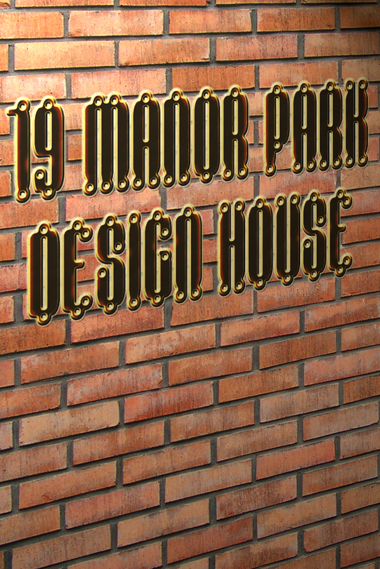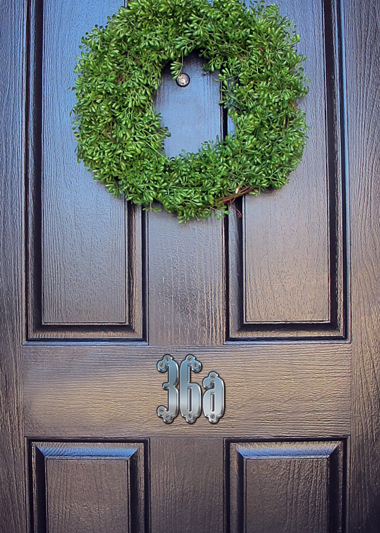
Inspired by old fashioned enamel and cast iron signage, where the screw holes are embedded with the font.
I decided to move the screw holes to the edge to create a more unique look.